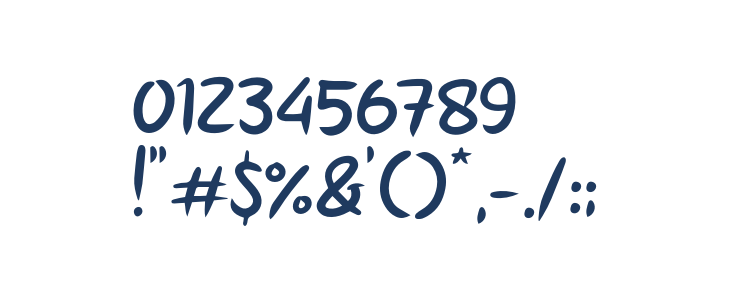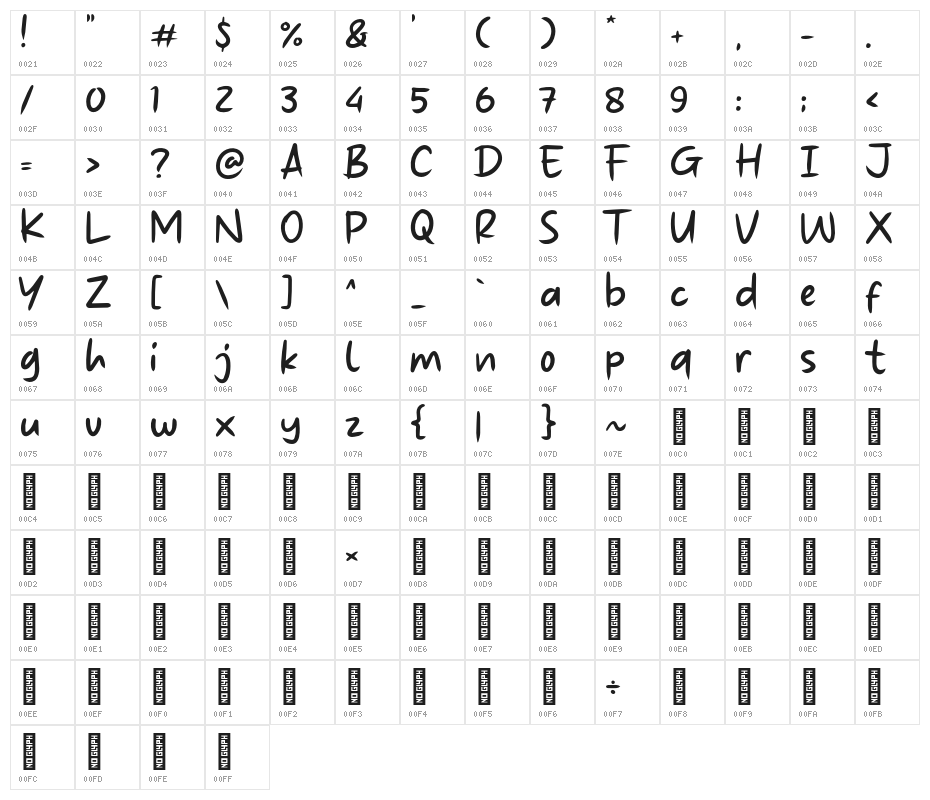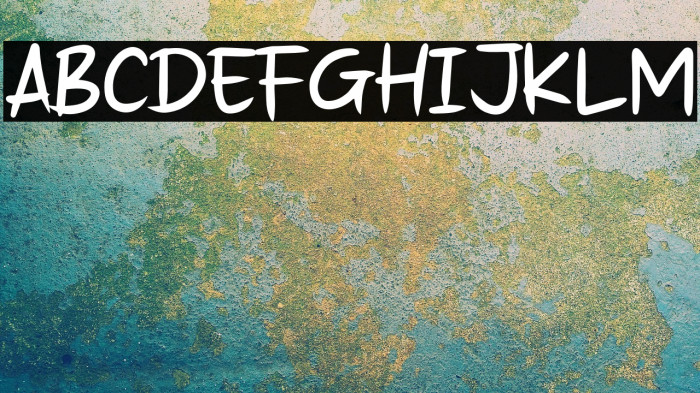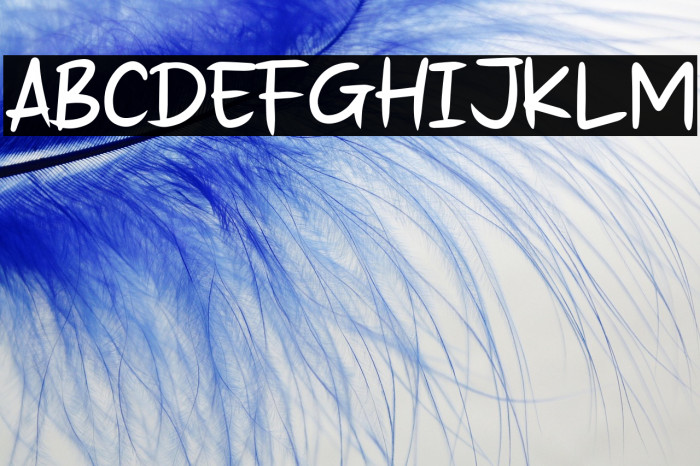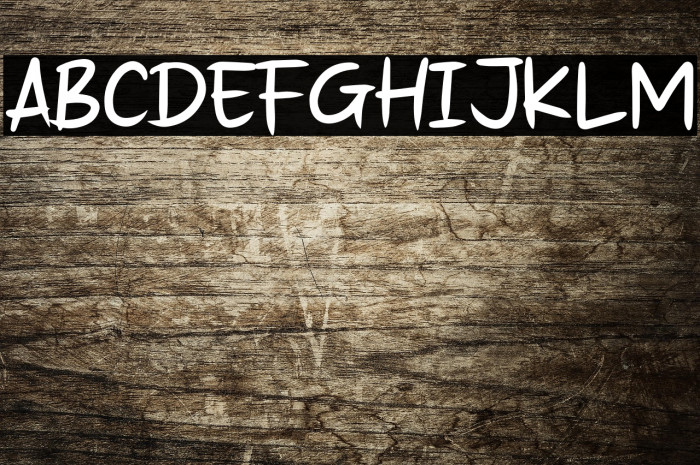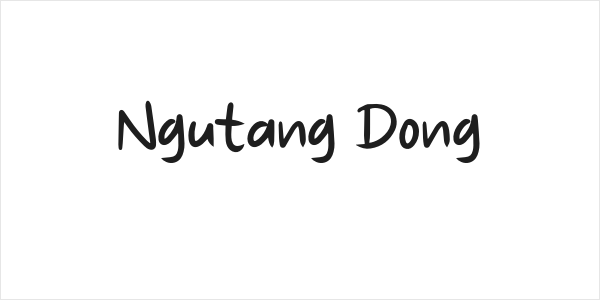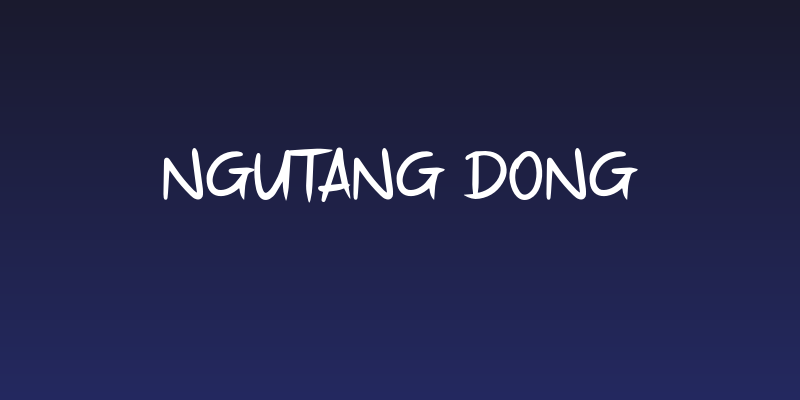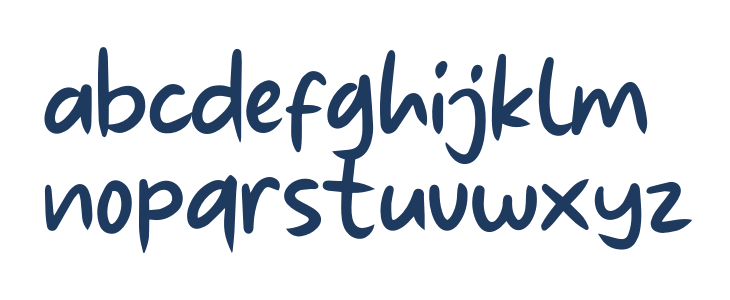
Ngutang Dong Font
Ngutang Dong Description
This font features a playful and casual handwritten style, characterized by its smooth, rounded strokes and slightly irregular letterforms. The uppercase and lowercase letters maintain a consistent flow, giving the font a cohesive and friendly appearance. The numerals are bold and clear, ensuring readability. Special characters are well-integrated, maintaining the overall aesthetic. The font's informal style makes it suitable for projects that require a personal touch or a relaxed vibe.